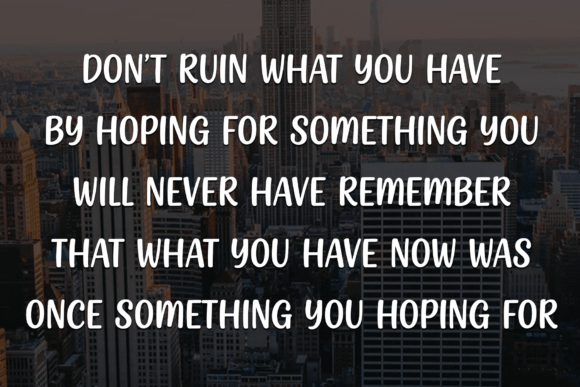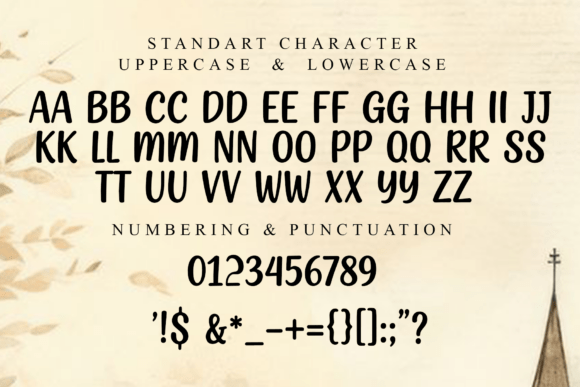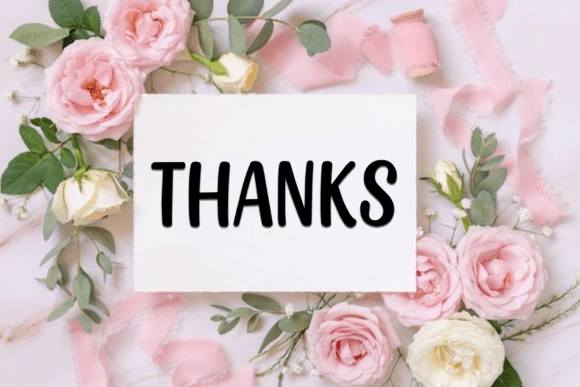
Introduction to Remember Parents Font
Capture the essence of warmth and nostalgia with Remember Parents, a “new style” handmade font designed to feel both familiar and fresh.
Remember Parents is an ideal choice for lifestyle branding, sentimental social media quotes, family-oriented event posters, and children’s book titles Whether you’re designing for a community project or a boutique craft brand, this font adds a layer of heartfelt, artisanal charm to every word.
Key Features of Remember Parents Font
Why Choose Remember Parents Font?
Remember Parents Font offers exceptional quality and versatility, making it a valuable addition to your design toolkit. Whether you’re creating for personal projects or commercial use, Remember Parents Font delivers professional results.